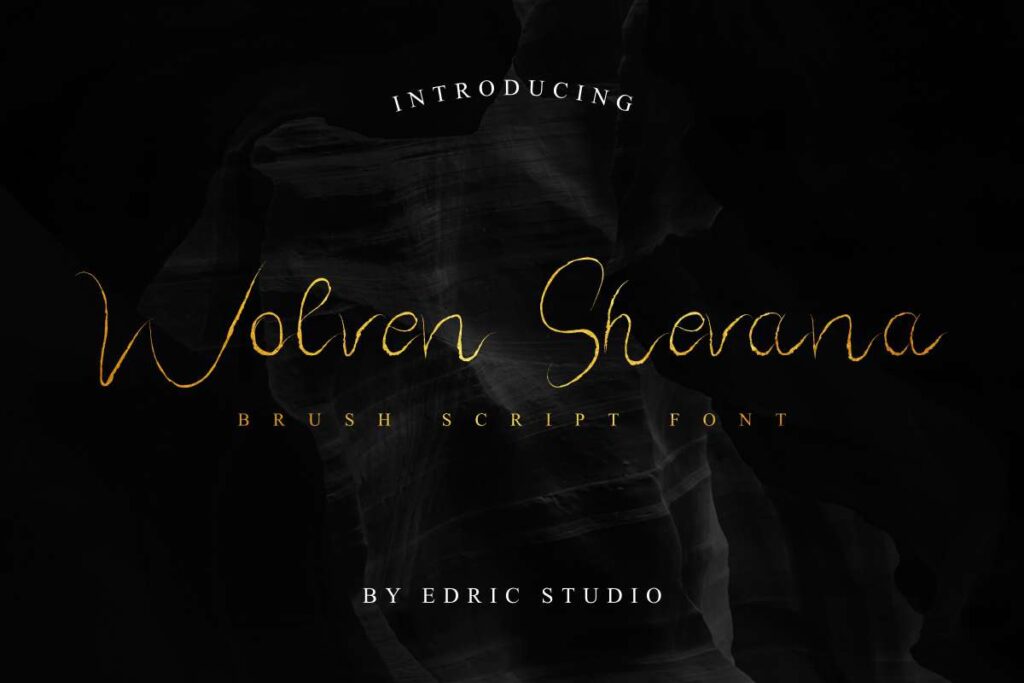
Wolven Shevana Font is an exclusive display script typeface with rough brush texture. This font has an awesome characters set, perfectly managed with well spaced and kerning. The theme style of this font is horror, vintage, grunge, dark and mysterious brush style.